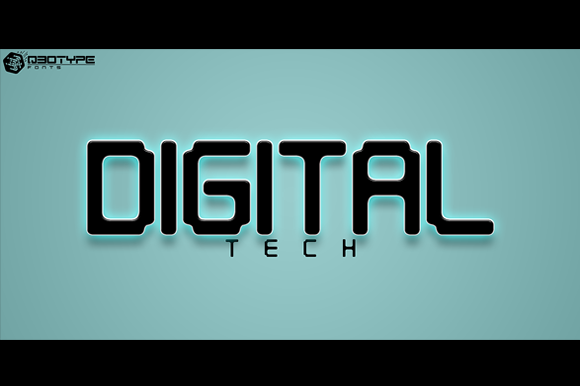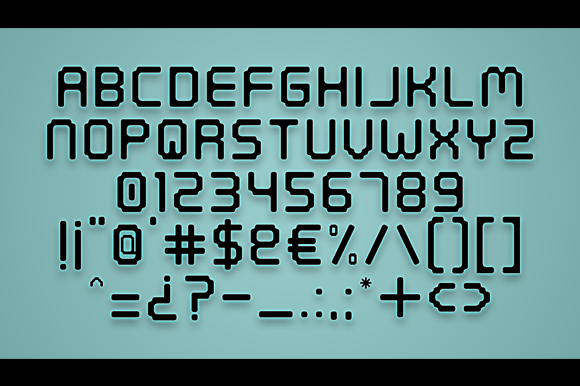
Unlock the Power of Digital Font in Your Designs
Have you ever been brainstorming a new project, and suddenly, the perfect idea strikes? The words start flowing, and your creative juices are in full swing. That’s exactly what happened when I stumbled upon the Digital Font. It’s a tech-inspired font that adds a smart vibe to any design, making it perfect for the modern era.
As a designer, you understand the importance of choosing the right font to convey your message. That’s where the Digital Font comes in – a versatile and stylish font that’s sure to elevate your designs. With its sleek lines and futuristic feel, it’s no wonder why designers are falling in love with this font. Whether you’re working on a tech startup or a futuristic sci-fi project, the Digital Font is a valuable addition to your design toolkit.
Designer Review: Digital Font
Overall, I’d say that Digital Font is a decent option for digital projects, but it has its limitations. Let’s dive in and explore what works well and what doesn’t.
- High legibility in various screen resolutions and devices
- Good contrast ratio, making it readable even in low-light conditions
- Available in a range of weights and styles to suit different design needs
- Limited character set and language support
- Not ideal for print projects, as it can appear too digital and pixelated
- Lack of subtle nuances in letterforms, which can make it appear stiff and unengaging
While Digital Font is a solid choice for digital projects, it’s essential to consider its limitations when deciding whether to use it. If you need a font for a website, app, or other digital interface, it might be a good option. However, if you’re working on a print project or need a font with more character depth, you might want to explore other options.